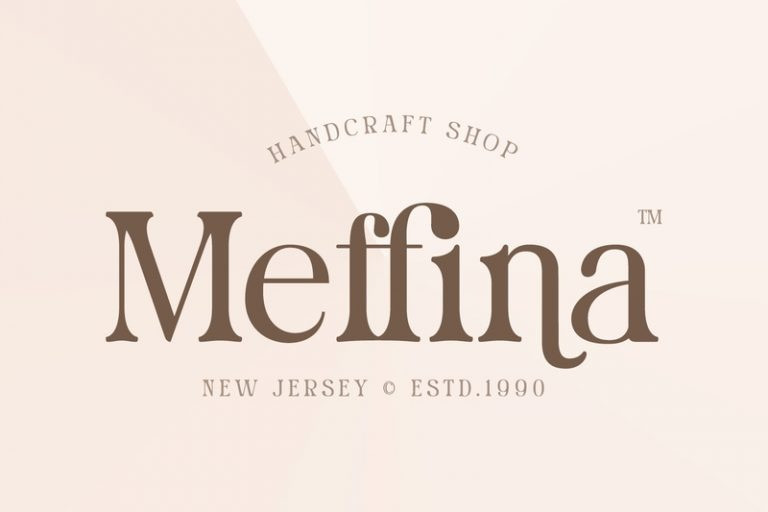
Gracious Bowing Font
Gracious Bowing Serif Font is a meticulously designed display serif font to meet your design needs. It expresses formal yet simple nuances in modern, elegant designs. Its main characteristic is the consistent geometry, proportion, and line thickness on each letter to be legible. For this reason, you can use this font for any text sizes. In addition, you can improve your designs with the available features.